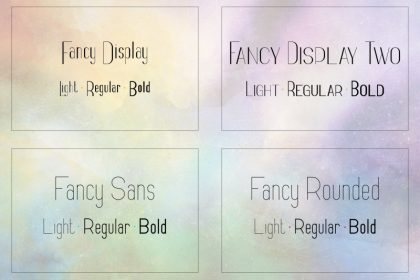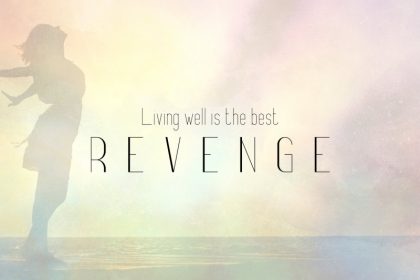
Fancy Font Family is clean typeface with 12 fonts and multilingual support. It’s a very versatile font that works great in large and small sizes.
Fancy Font is perfect for branding projects, home-ware designs, product packaging, magazine headers – or simply as a stylish text overlay to any background image.
- Uppercase, lowercase, numeral,punctuation & Symbol
- Multilingual
- Fancy Display – light, regular, bold
- Fancy Display Two – light, regular, bold
- Fancy Sans – light, regular, bold
- Fancy Rounded – light, regular, bold